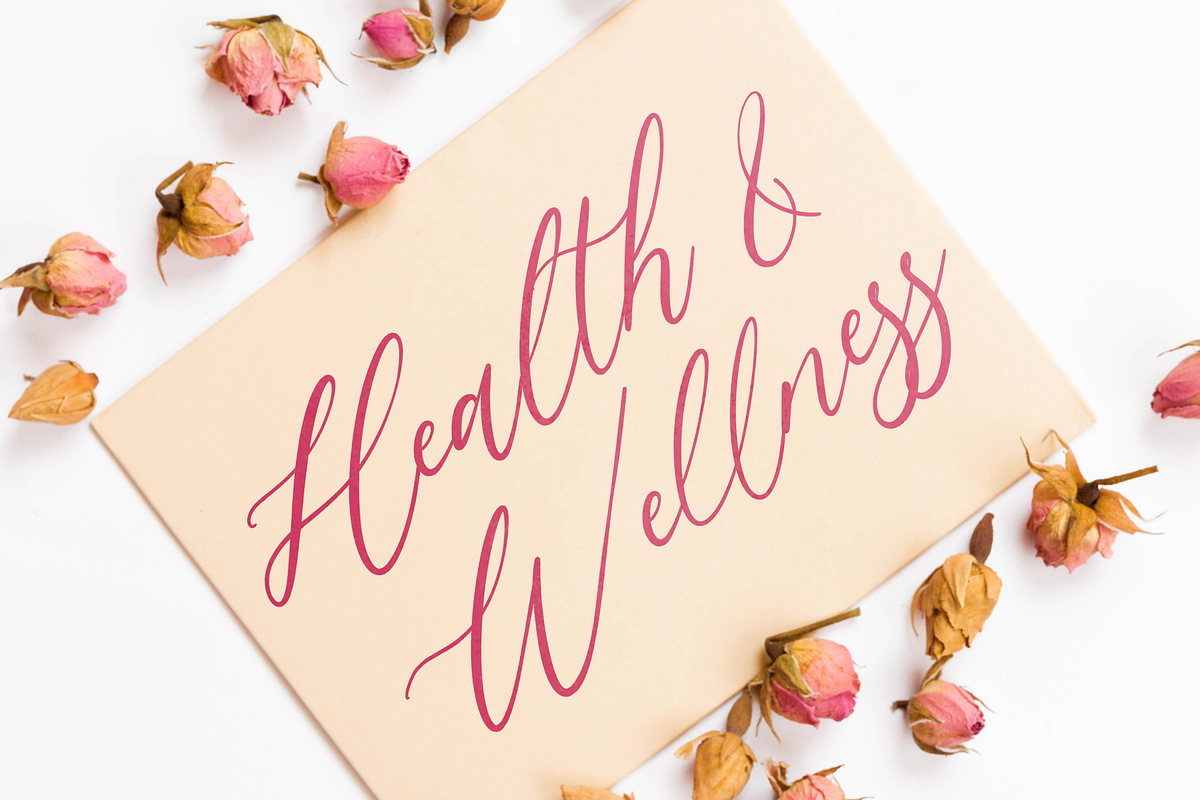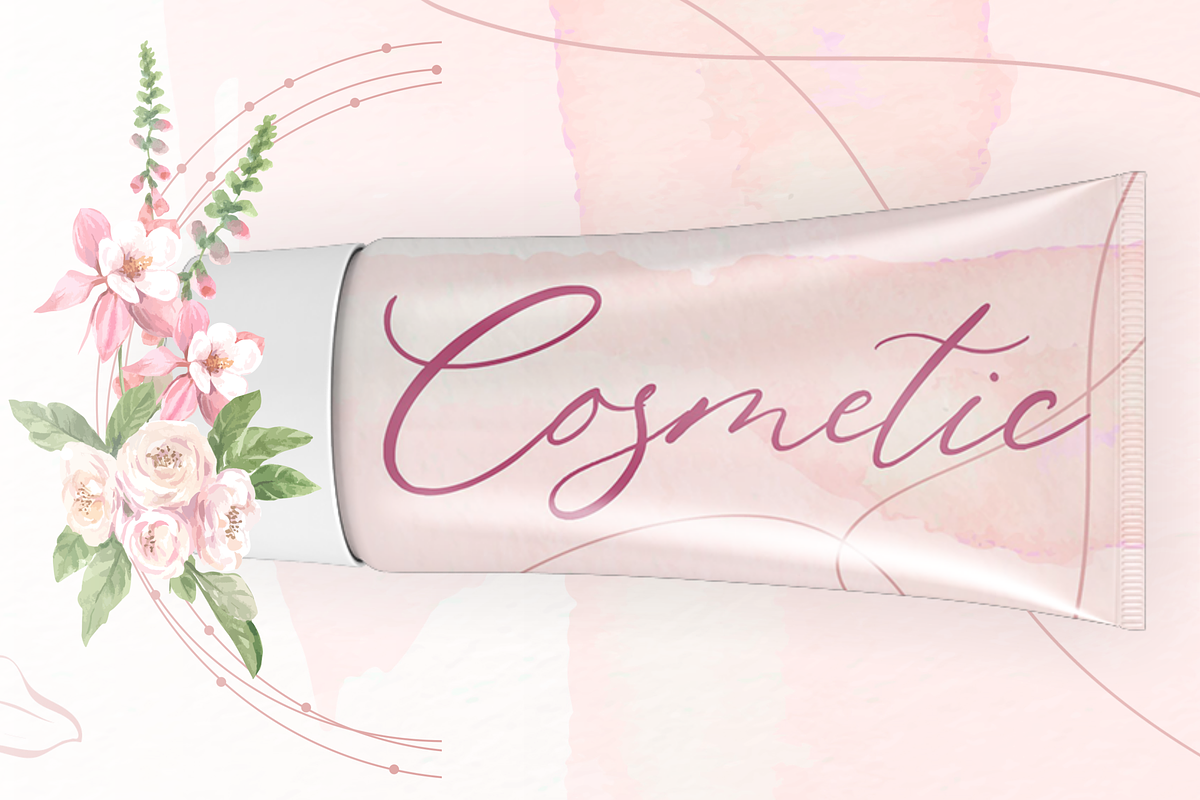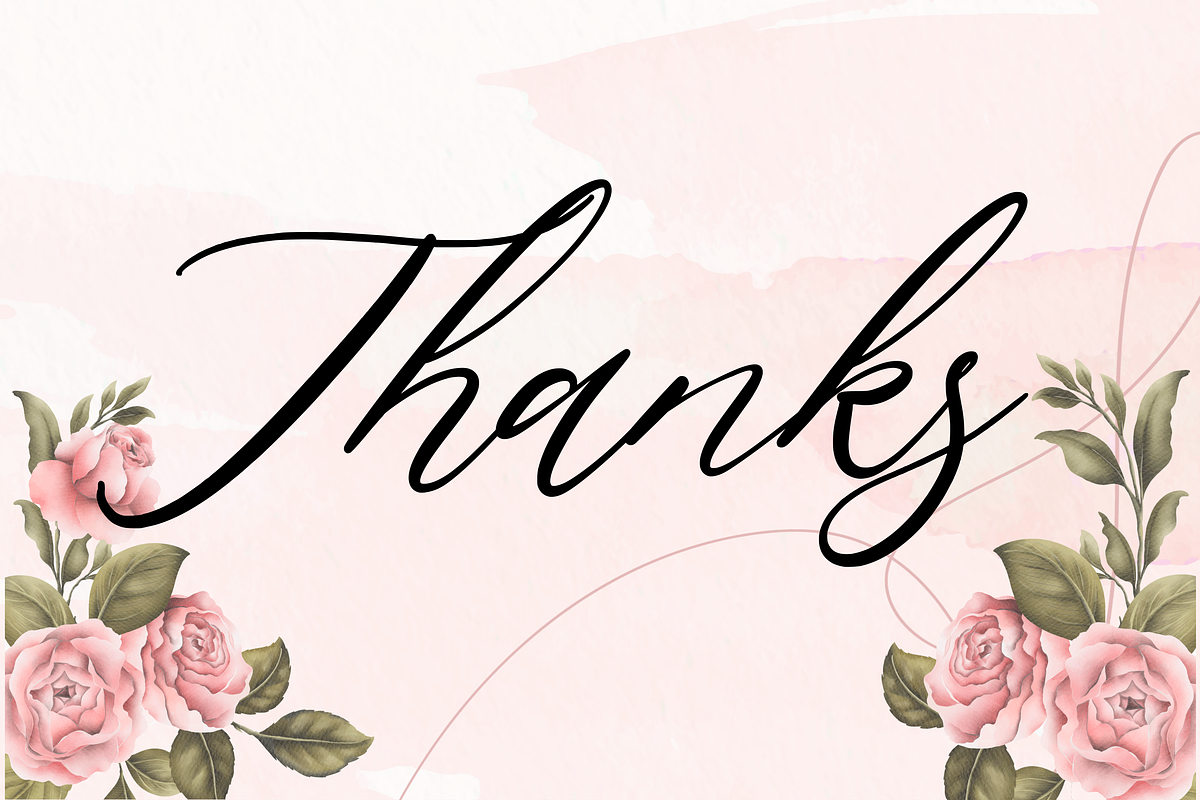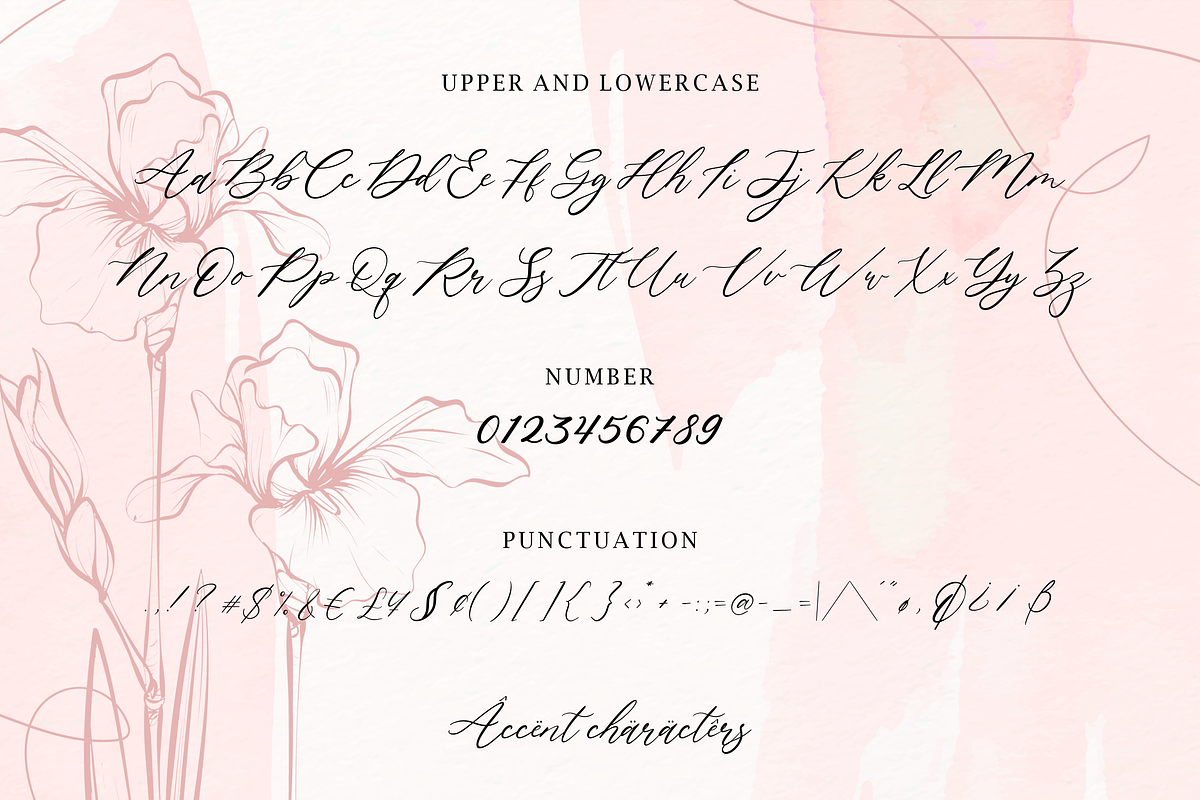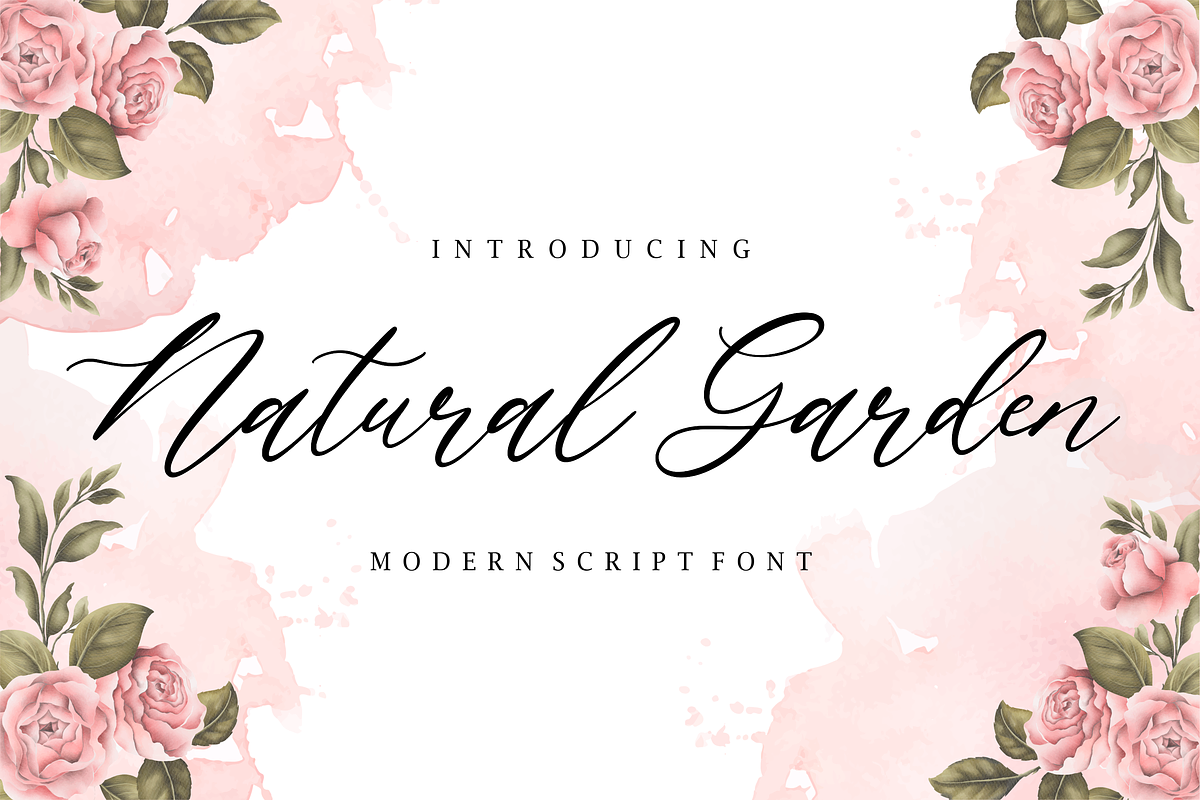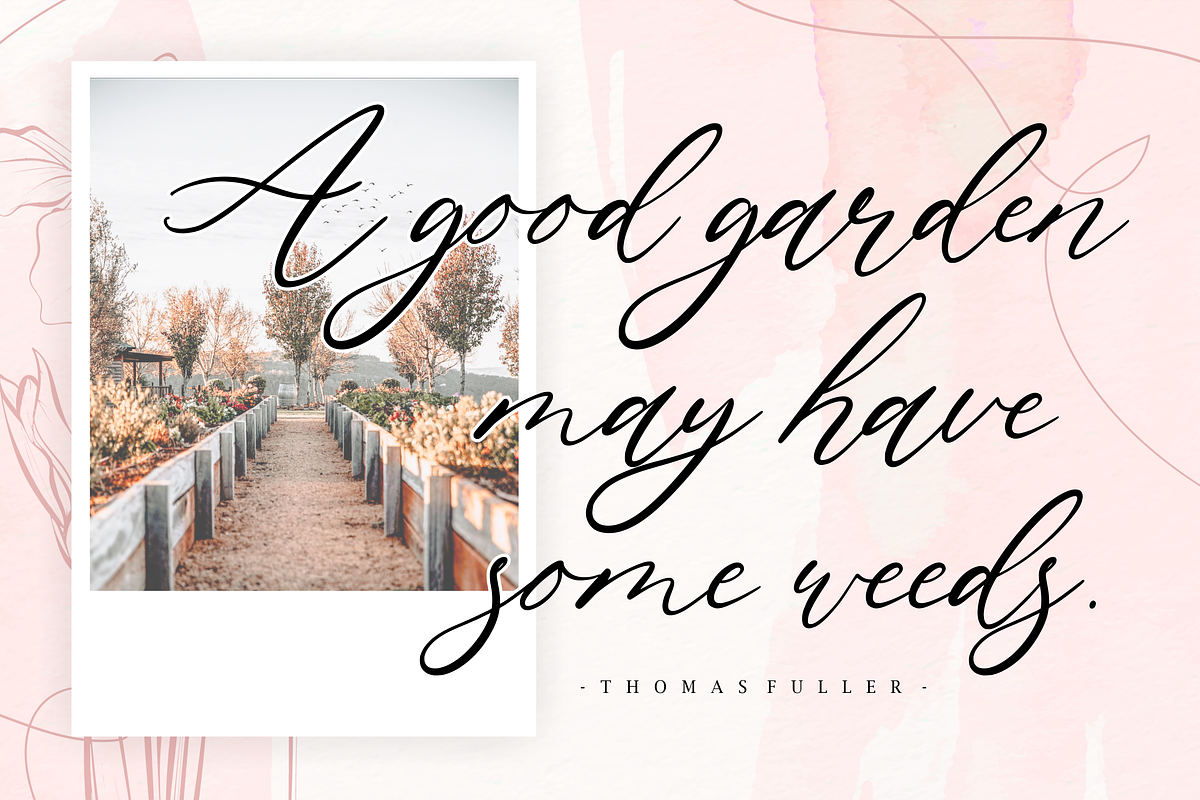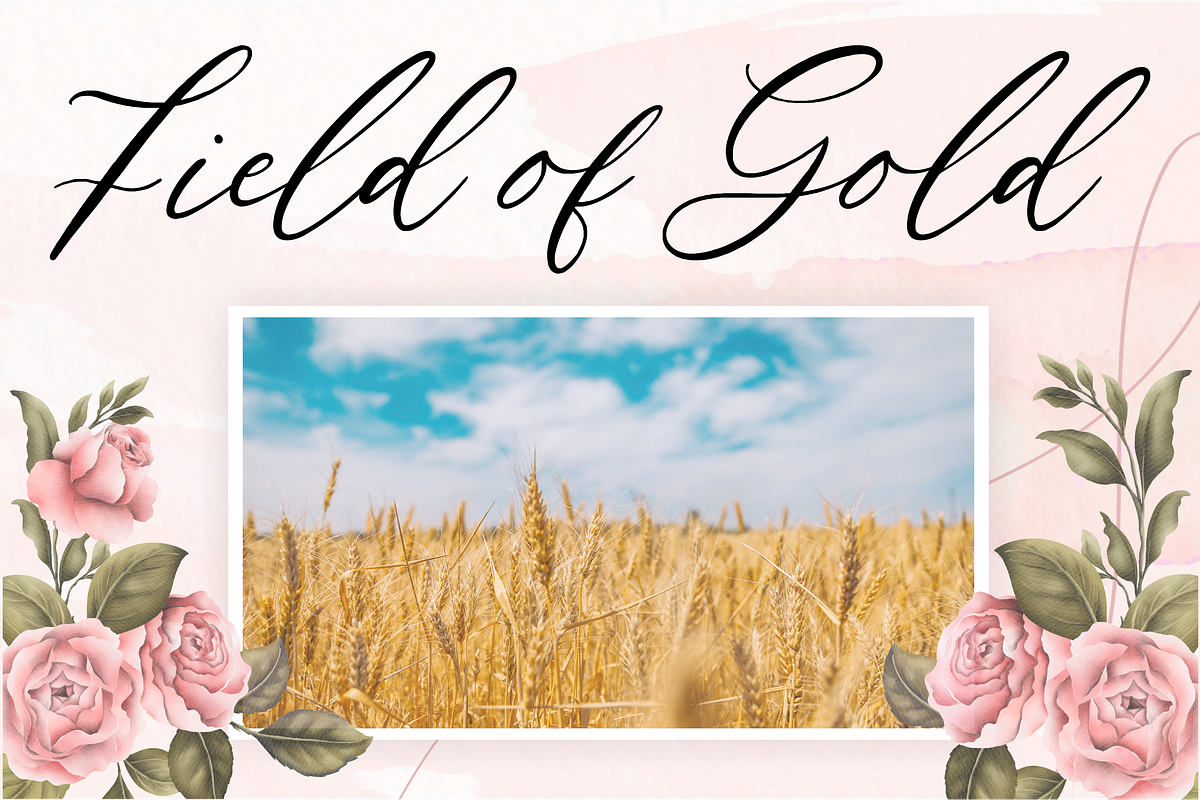
Natural Garden - Modern Script Font
Proudly Present, Natural Garden Font
Natural Garden is a sweet, soft hand-lettered handwritten font. Fall in love with its authentic feel and use it to create gorgeous wedding invitations, beautiful stationary art, eye-catching social media posts, and cute greeting cards.
- also multilingual support